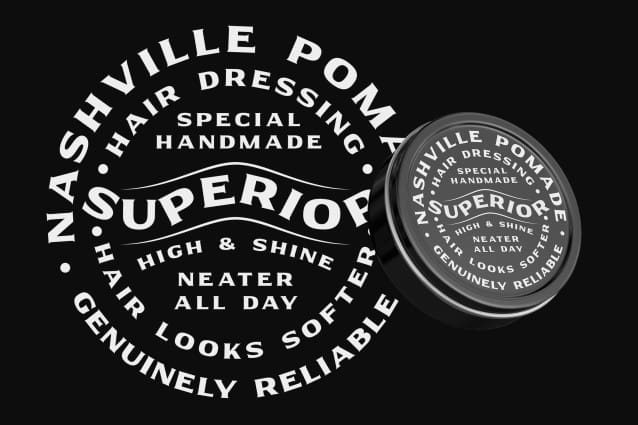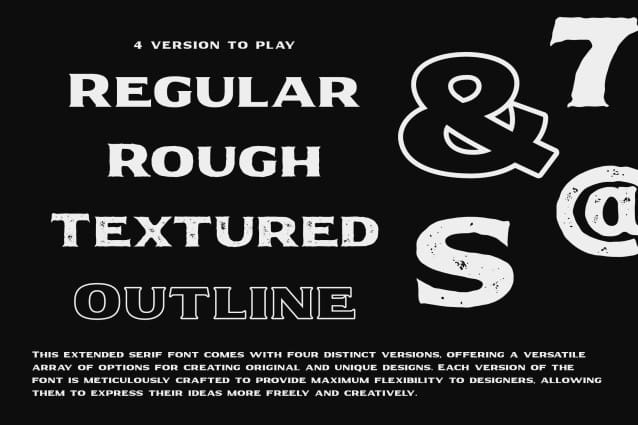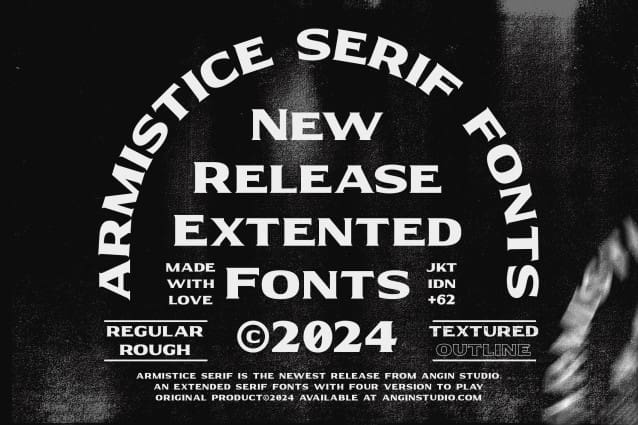
Armistice Font
Armistice Font – Serif new release extended fonts with four version to play, brings a touch of classic refinement to your project.
Embrace the power of elegant typography with Armistice Extended Serif and let your words stand out with distinction.